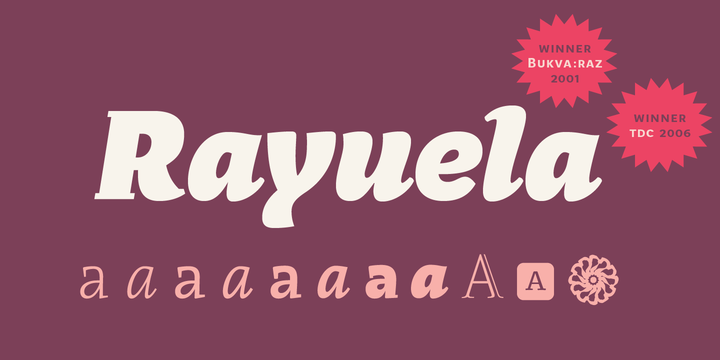
Rayuela (Spanish for ‘Hopscotch’) is inspired in the ludic atmosphere of literature by Argentinean writer Julio Cortázar. The type family was designed between 1999 & 2000 during two European postgraduate courses: MA in typeface design, University of Reading (UK), and later at the ANRT, atelier national de recherche typographique (Nancy, FR). The challenge was to design a letterform that could create an informal atmosphere while still being comfortably readable. Rayuela was PampaType’s first multi-style family. Since then other families of the foundry (such as Borges, Arlt, or Perec) have followed a similar spirit, that is building a system whose personality relies more in variety than in a rigid consistency. More…